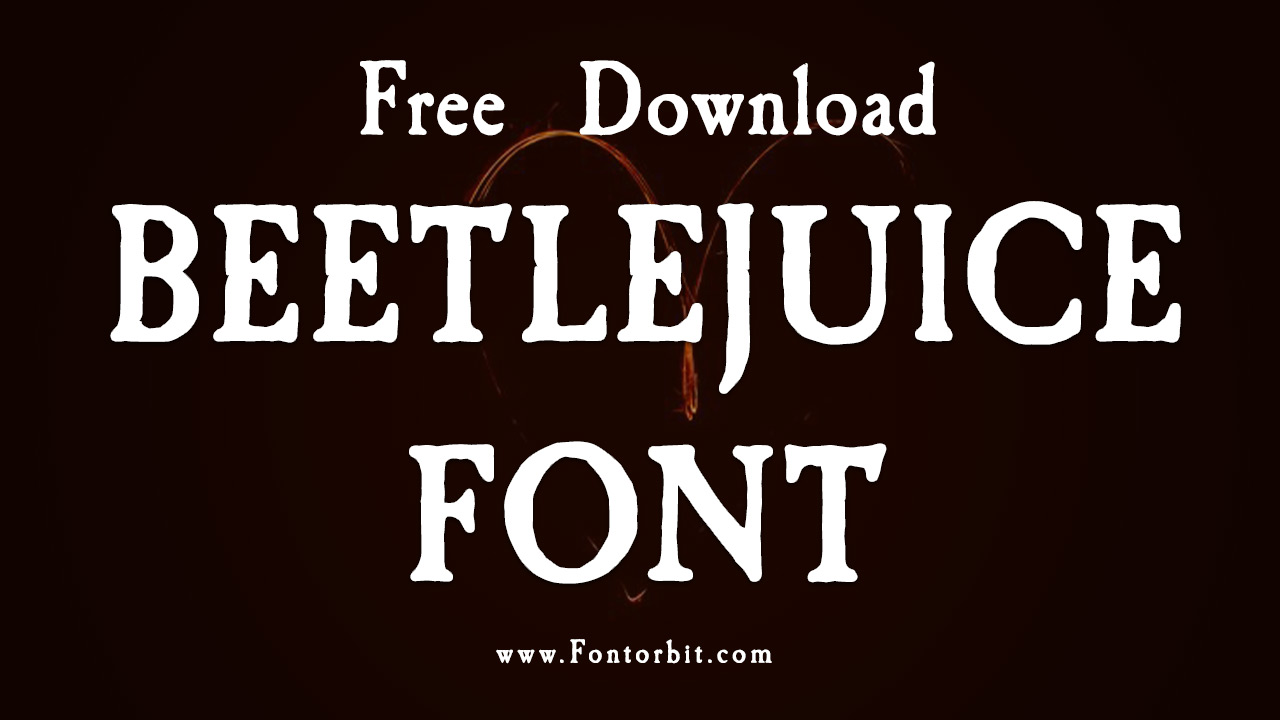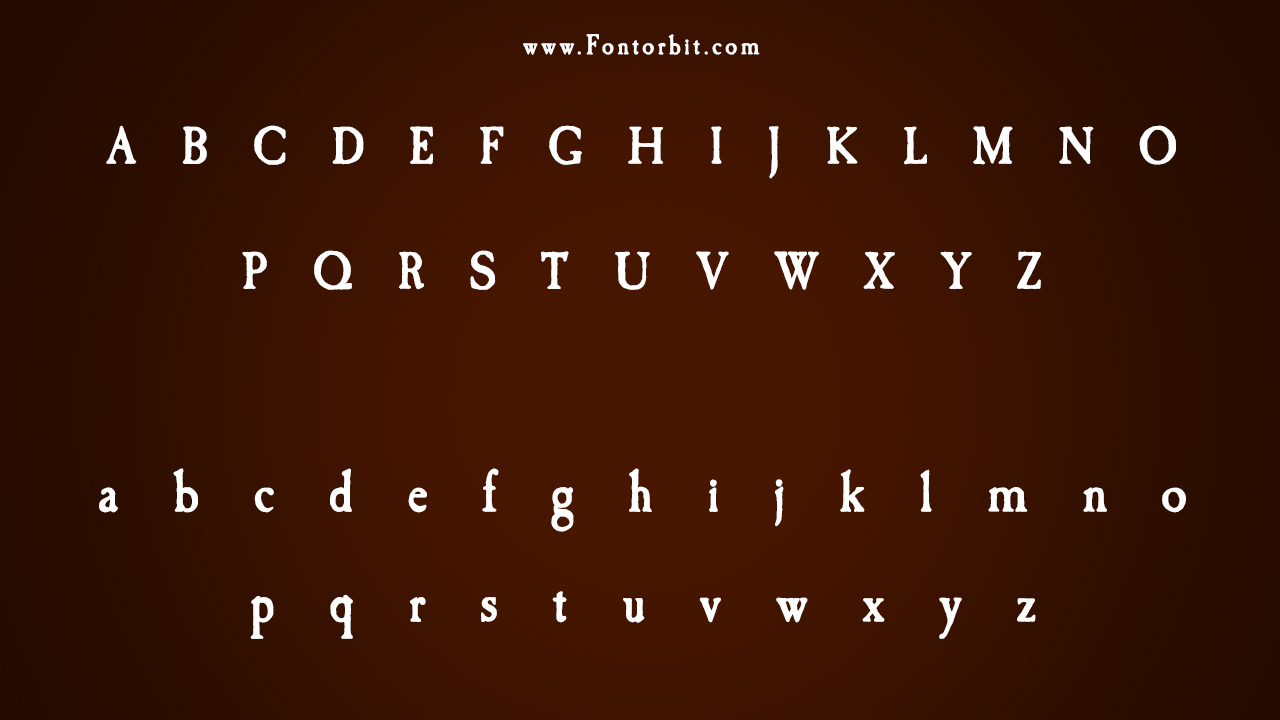
Beetlejuice Font, designed by Brian J. Bonislawsky, was first released in 2012. This serif typeface draws inspiration from the iconic logo of the 1988 film Beetlejuice, which resembles the CaslonAntique font designed by Bernd Nadall.
Its unique, vintage style is perfect for various creative projects. It includes a range of glyphs suitable for adding a retro touch to your designs.
The Beetlejuice Font Family
- CaslonAntique
- CaslonAntique Bold
- CaslonAntique Bold Italic
- CaslonAntique Italic
The Beetlejuice Font Found In Use
- Movie Posters
- Themed Invitations
- Branding Projects
- Merchandise
- Creative Thumbnails
Beetlejuice Font is frequently utilized in various design projects for its eye-catching, vintage appeal. It’s commonly seen in movie posters, themed invitations, and branding materials. The font adds a distinctive retro charm to merchandise and social media graphics, making content more engaging and memorable.
1.Which Font Appears On The Official Posters Of The Beetlejuice Movie?
The official Beetlejuice movie posters use a modified version of Caslon Antique, designed by Bernd Nadall.
2.What Are The Font Pairings That Work Well With The Beetlejuice Font?
Pair the Beetlejuice Font with clean sans-serifs like Helvetica or Futura for contrast and readability.
3.What Are The Best Practices For Using The Beetlejuice Font In Design?
Use Beetlejuice Font for headlines and titles. Ensure good contrast with the background and avoid overusing it to maintain its impact.
6.Which Font Goes Best With The Beetlejuice Font?
It pairs well with modern fonts like Calibri for a balanced look.